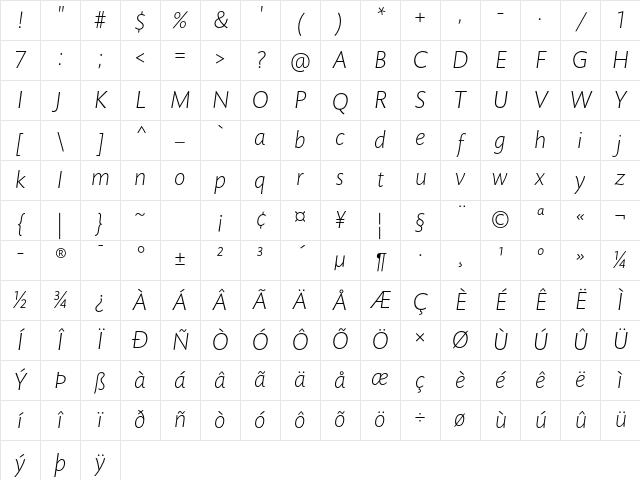
Mundo Sans Std Light Italic
Design Context for Mundo Sans Std
Mundo Sans Std is a composed and adaptable typeface that performs quietly and consistently across a wide range of design contexts. The slanted form adds forward momentum and visual energy. Its slender proportions lend an understated elegance to any composition.
Pro Tip: Use Mundo Sans Std for emphasis, pull quotes, and subheadings where its slanted energy can add rhythm to the layout.